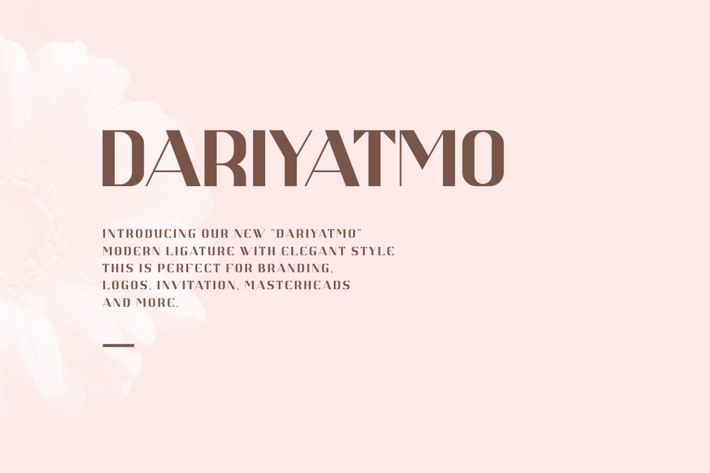
DARIYATMO SANS SERIF FONT
DARIYATMO SERIF FONT is a bold and authentic display font. The font is suitable for any branding project like logo, t-shirt printing, esport, and many more. outstanding in a wide range of contexts.